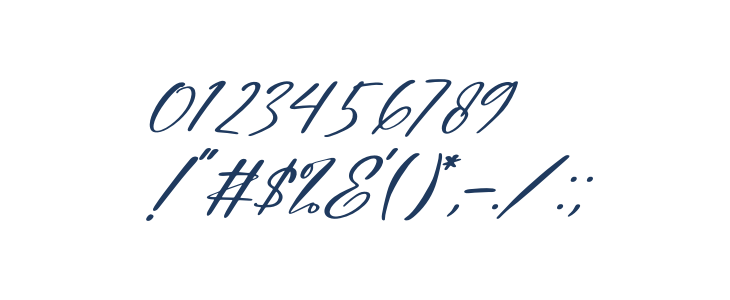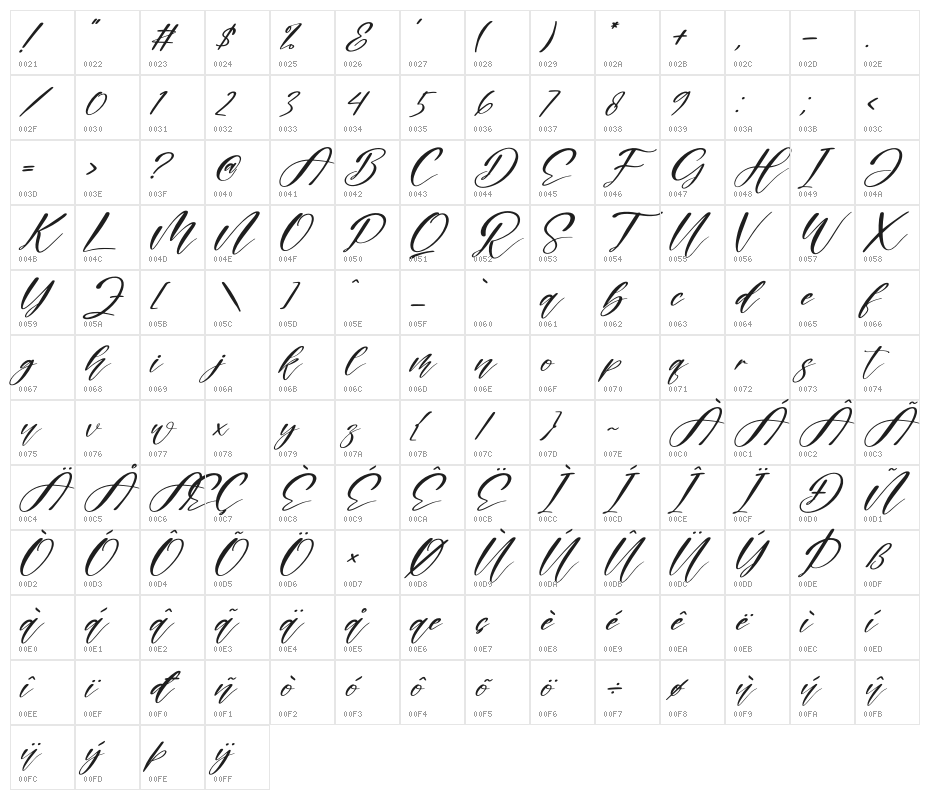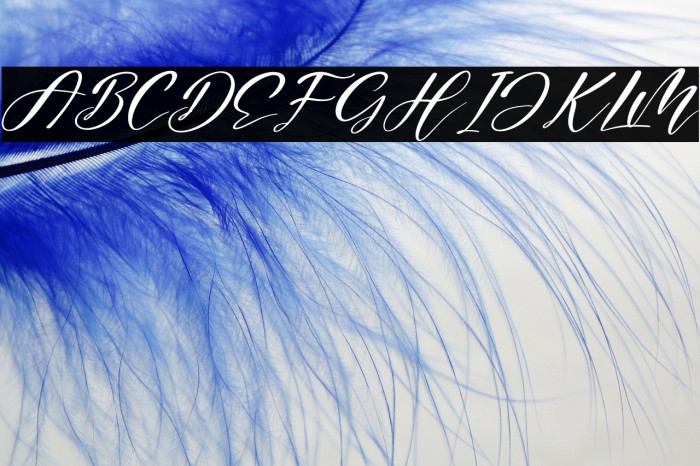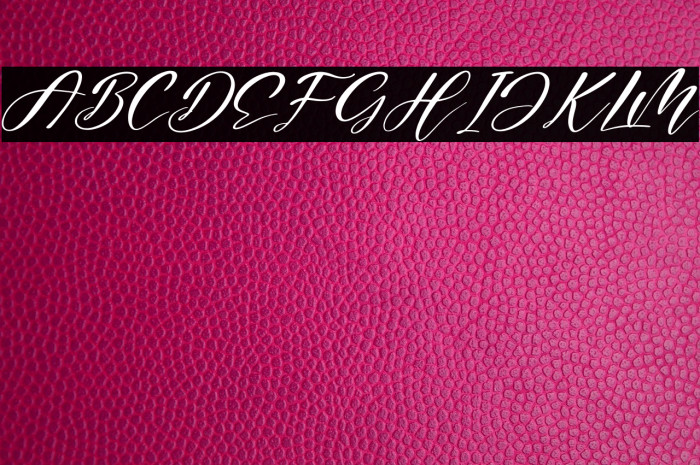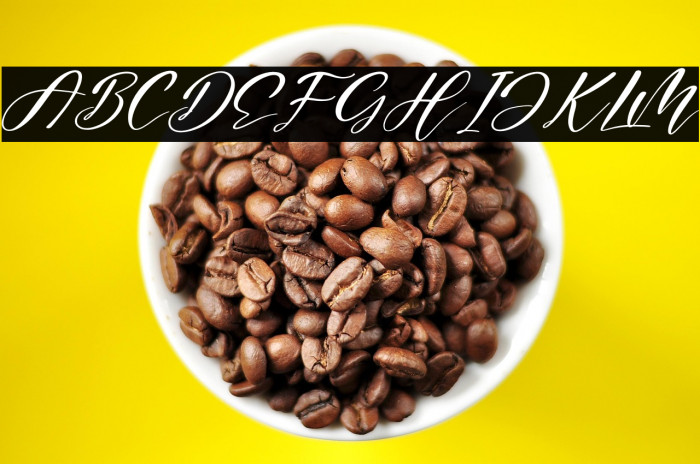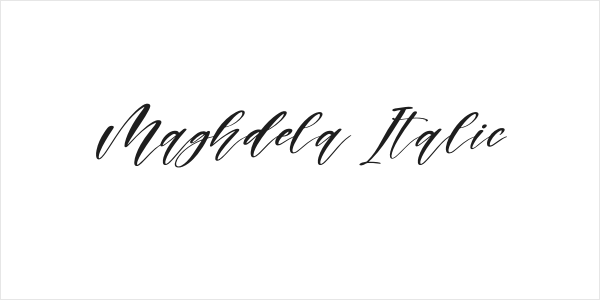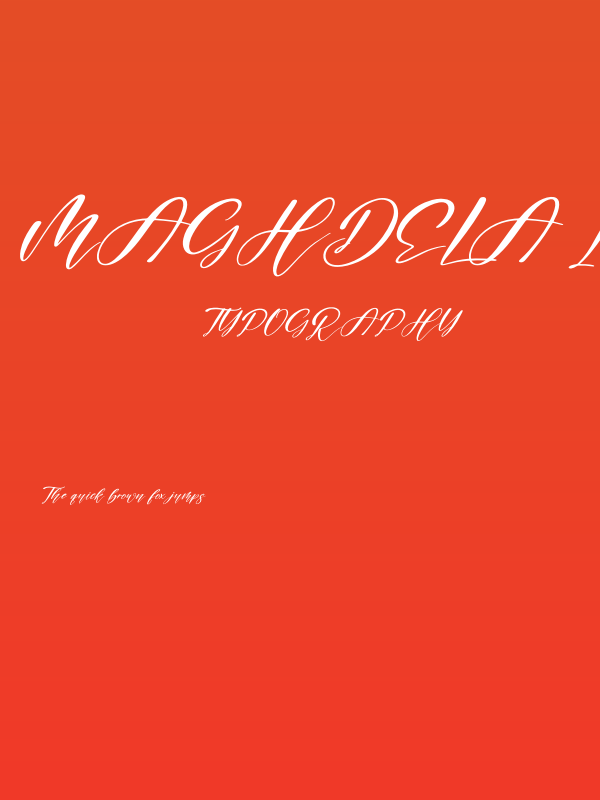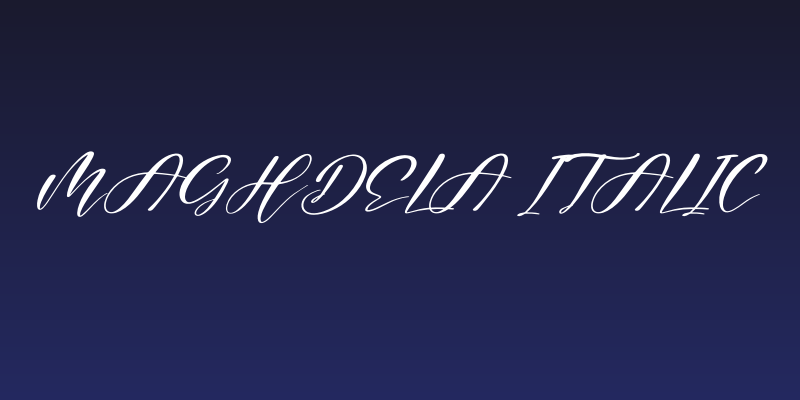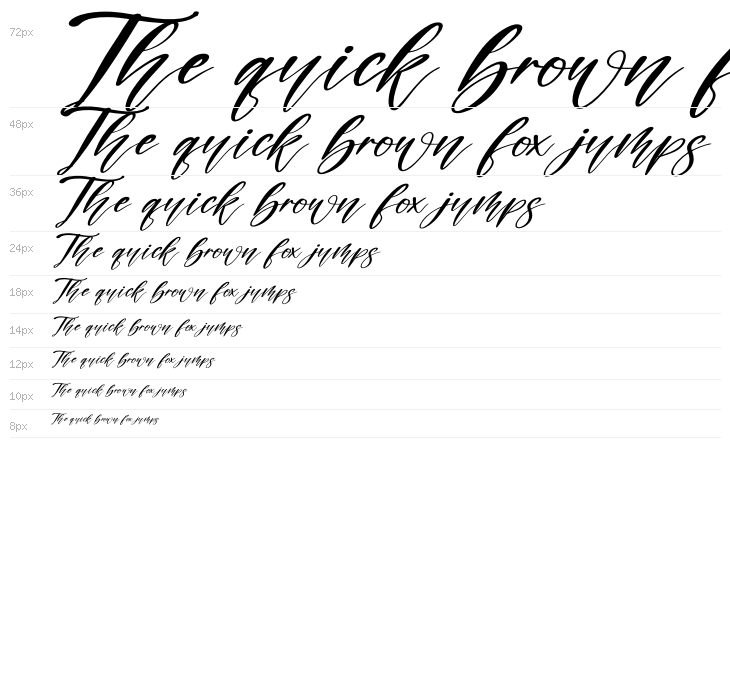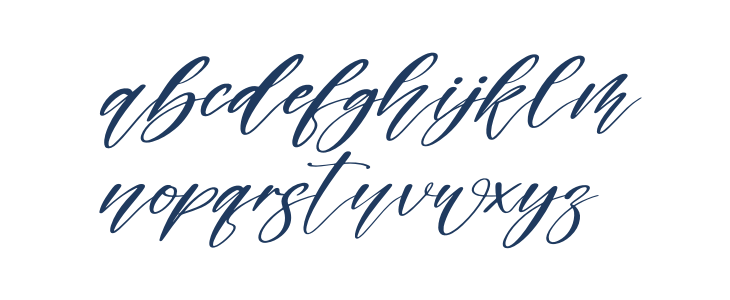
Maghdela Italic Font
Maghdela Italic Description
This font exudes a dynamic and elegant script style, characterized by its fluid, cursive strokes and a distinct italic slant. The uppercase letters are bold and sweeping, with a graceful flow that connects each character seamlessly. The lowercase letters maintain a consistent rhythm, enhancing readability while retaining an artistic flair. Numbers and special characters are crafted with the same attention to detail, ensuring a cohesive appearance across all elements. The overall impression is one of sophistication and creativity, making it suitable for a variety of design applications.
| Overall Style | Elegant, Artistic |
| Proposed Projects | Ideal for wedding invitations, elegant branding, personal signatures, and artistic projects. |